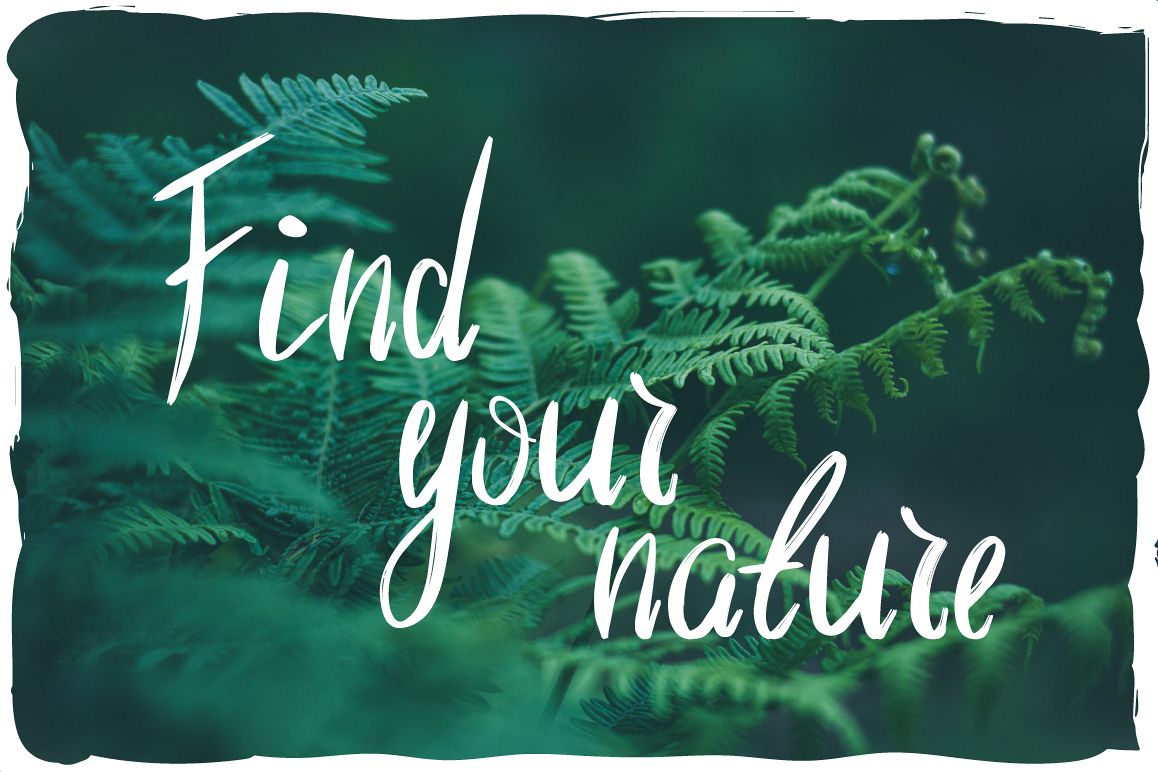
Wild Nature Script Typeface
Wild Nature
Wild Nature typefaceIntroducing the new script label typeface named "Bakehouse". This typeface contains caps and small letters, numbers and punctuation sings, alternates and ligatures. This is a handwritten brush font with authentic dry brush strokes like drawn on paper. Font format: OTF. You can find all the photos used on unsplash.com and down;oad them for free.Thank you!